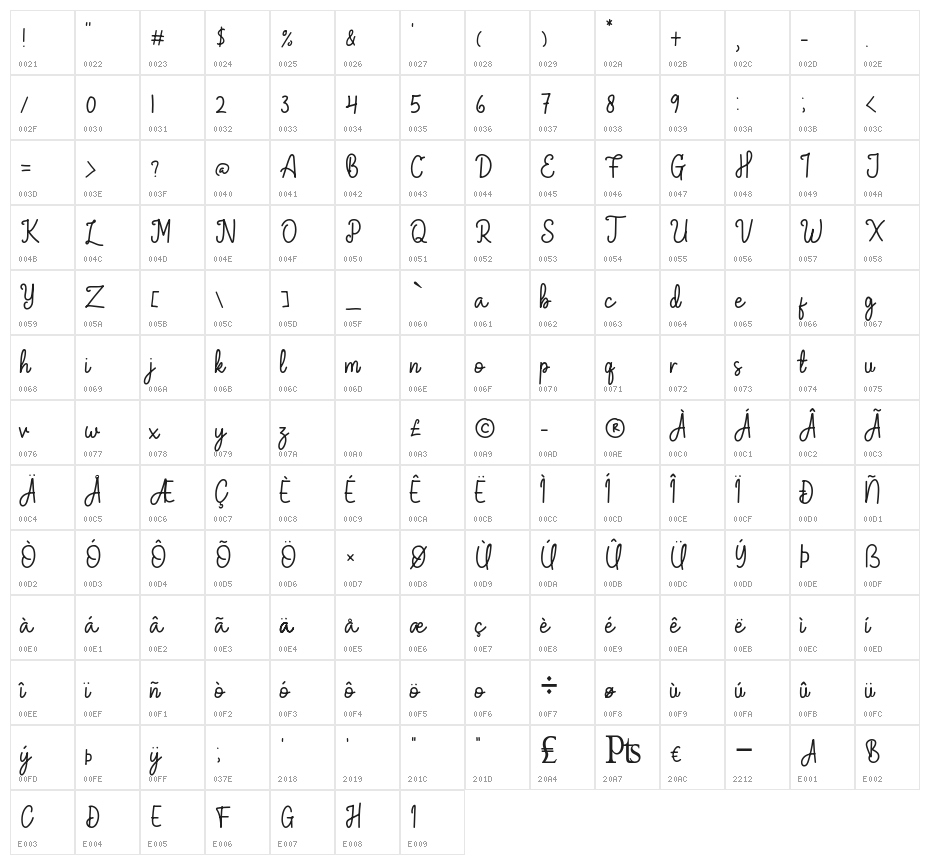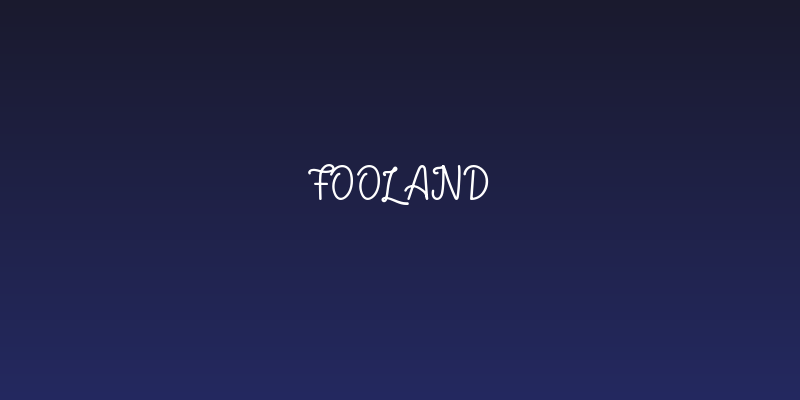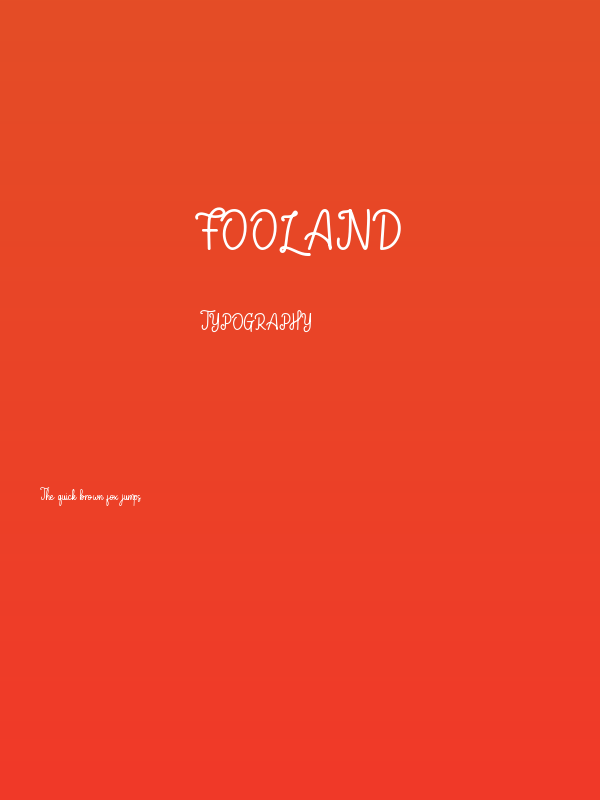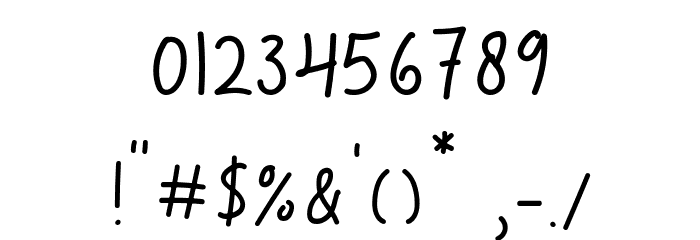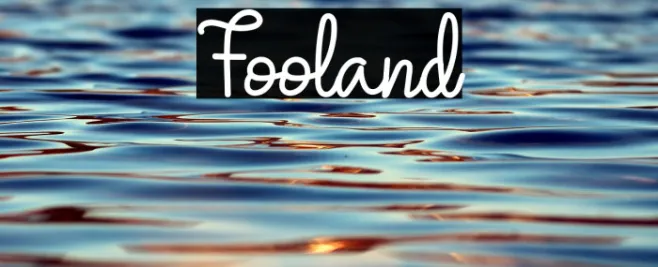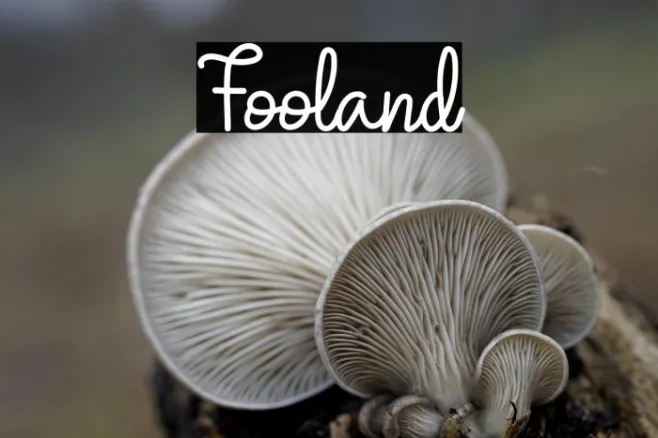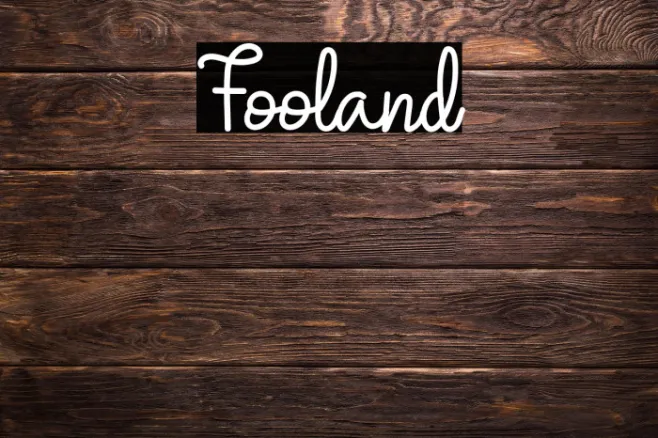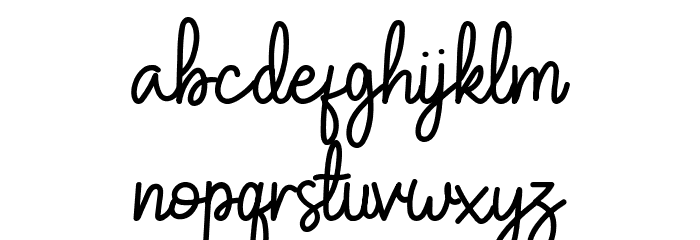
Fooland Font
Fooland Description
This font features a playful and whimsical handwritten style, characterized by its flowing, cursive-like strokes and slightly uneven letterforms. The uppercase letters are bold and prominent, with a slight slant that adds to the casual feel. The lowercase letters are more tightly connected, resembling a smooth, continuous script. Numbers and special characters maintain the same playful aesthetic, making them suitable for informal and creative designs. The overall appearance is friendly and approachable, ideal for projects that require a personal touch.
| Overall Style | Playful, Casual |
| Proposed Projects | Ideal for greeting cards, children's book covers, playful branding, and creative invitations. |